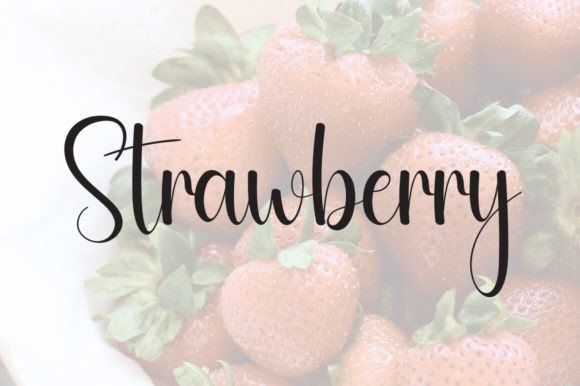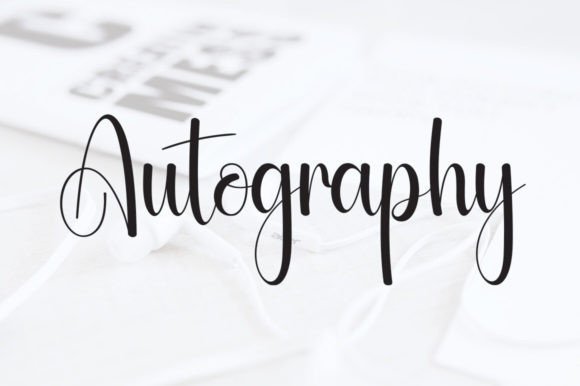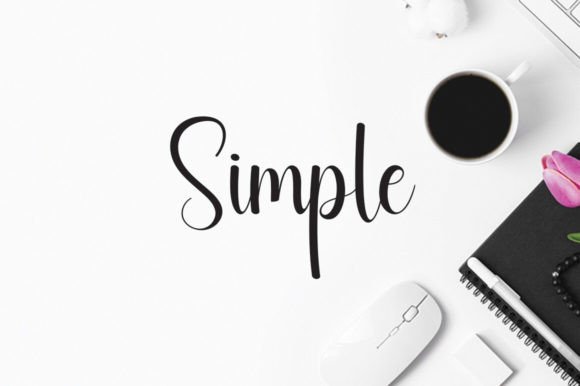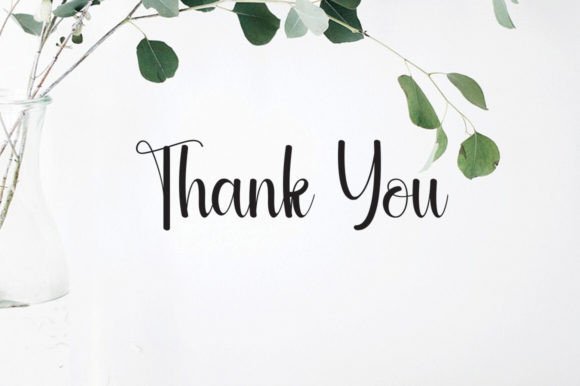
Discover the Enchanting Charm of Angelina Font: A Sweetly Cursive Handwritten Delight
Are you on the hunt for a font that embodies the perfect blend of elegance, romance, and playfulness? Look no further than Angelina, a captivatingly cursive, handwritten font that is sure to bring a touch of sweetness to your design projects. With its soft and refined characteristics, Angelina is the ideal choice for designers and crafters seeking to add a dash of sophistication and charm to their creations.
The Essence of Angelina: A Font that Exudes Joy and Romance
Angelina is more than just a font – it’s an experience. Imbued with an aura of joy and romance, this beautiful script font is designed to infuse an enchanting charisma into each of your creative endeavors. Whether you’re working on a wedding invitation, a branding project, or a social media graphic, Angelina’s gentle and flowing curves are sure to captivate your audience and leave a lasting impression.
What Makes Angelina So Special?
So, what sets Angelina apart from other fonts? Here are just a few characteristics that make this font truly special:
- Sweetly Cursive: Angelina’s cursive design gives it a soft, romantic feel that’s perfect for projects that require a touch of elegance.
- Handwritten Charm: With its handwritten origins, Angelina boasts a unique, personal feel that’s sure to connect with your audience.
- Elegant and Refined: Angelina’s smooth lines and flowing curves make it an excellent choice for projects that demand sophistication and poise.
Angelina’s versatility makes it an excellent choice for a wide range of design projects, including:
- Wedding and Event Stationery: Add a touch of romance and whimsy to your wedding invitations, save-the-dates, and other event materials.
- Branding and Packaging: Infuse your brand with a dash of elegance and sophistication using Angelina in your logo, packaging, and marketing materials.
- Social Media Graphics: Create eye-catching social media graphics, such as Instagram posts and Facebook headers, that showcase Angelina’s playful charm.
- Blog and Website Design: Add a personal touch to your blog or website with Angelina, perfect for headings, titles, and other design elements.
Tips for Using Angelina in Your Designs
To get the most out of Angelina, here are a few tips to keep in mind:
- Pair with Contrasting Fonts: Combine Angelina with a clean, sans-serif font to create visual interest and balance.
- Experiment with Colors: Try pairing Angelina with a range of colors, from soft pastels to rich jewel tones, to find the perfect combination for your project.
- Play with Size and Style: Don’t be afraid to experiment with different font sizes and styles, such as bold or italic, to add emphasis and create visual hierarchy.
In conclusion, Angelina is a truly special font that is sure to bring a touch of magic to your design projects. With its sweetly cursive, handwritten charm and elegant characteristics, Angelina is the perfect choice for designers and crafters seeking to add a dash of sophistication and romance to their creations. So why wait? Discover the enchanting charm of Angelina Font today and take your designs to the next level!